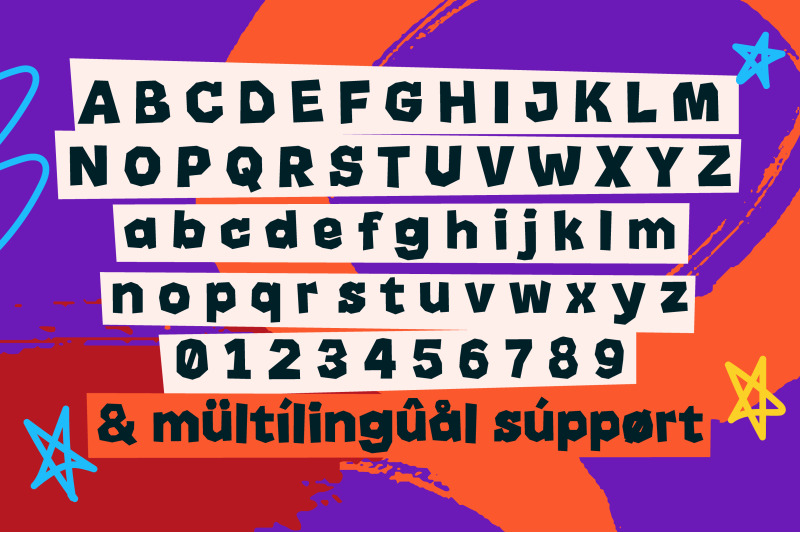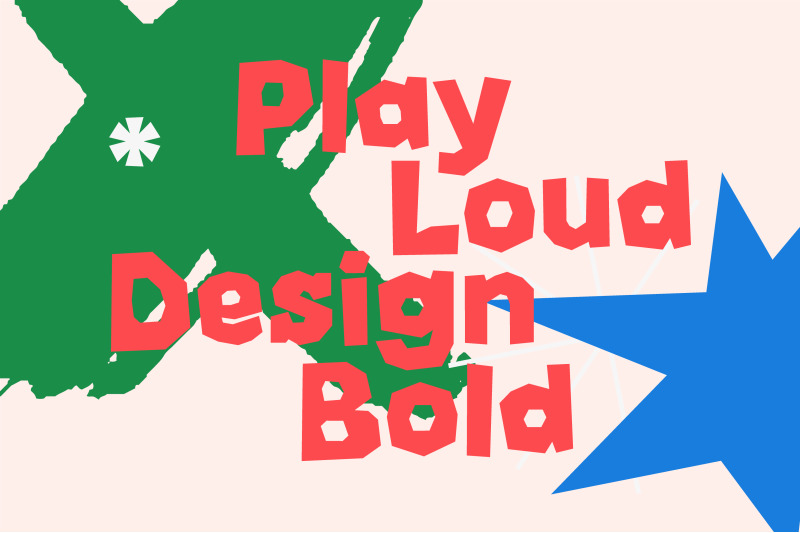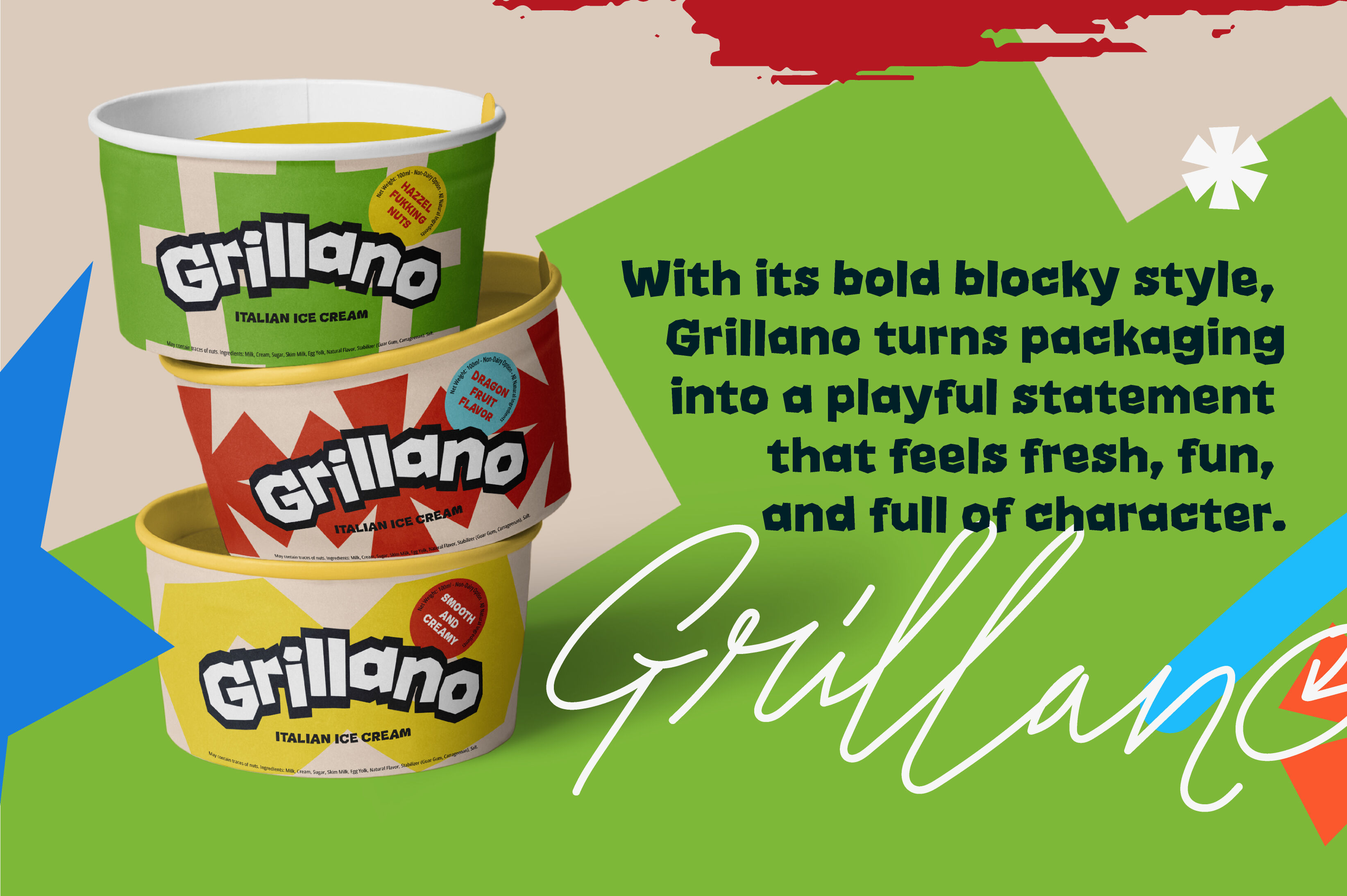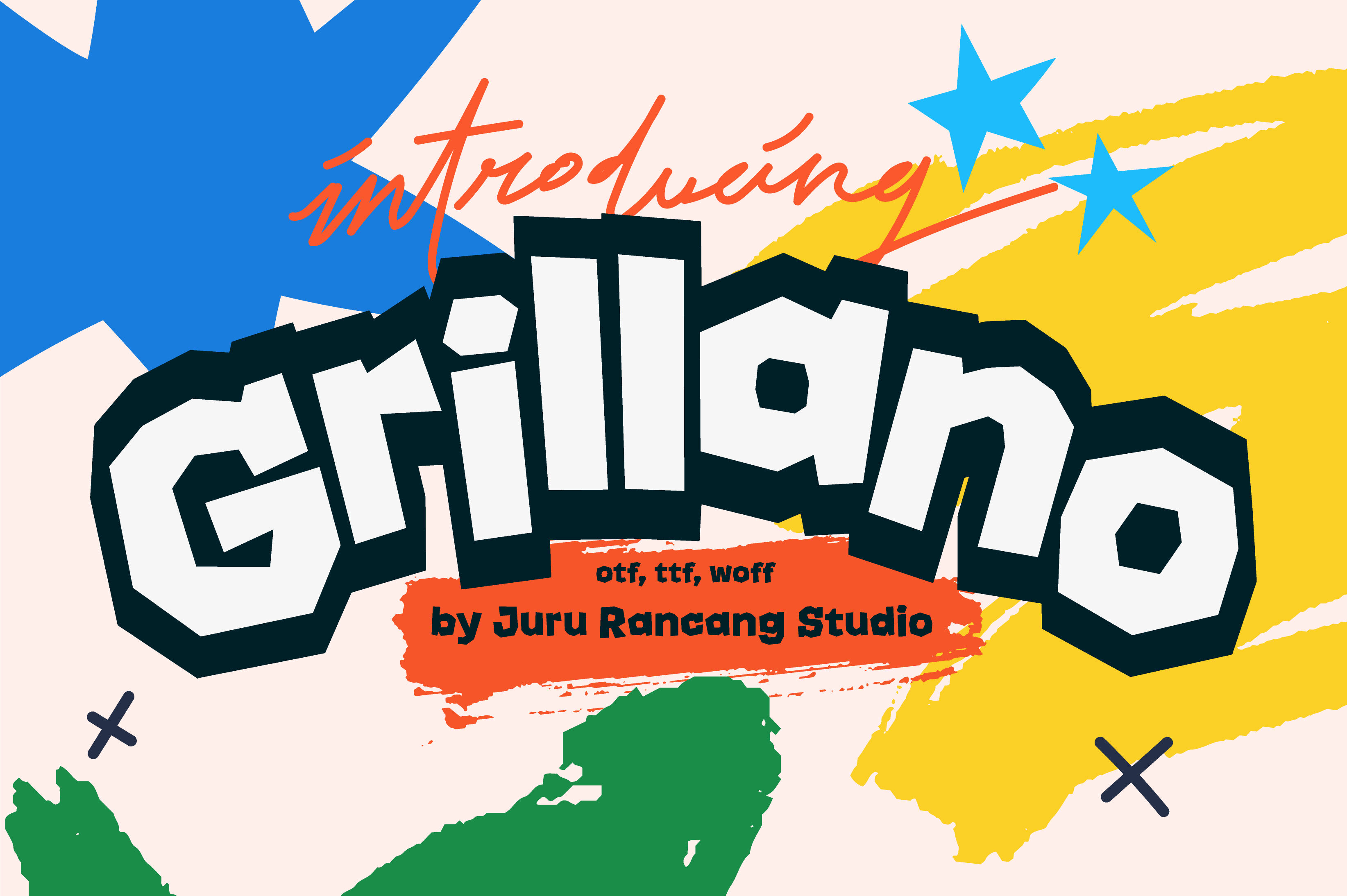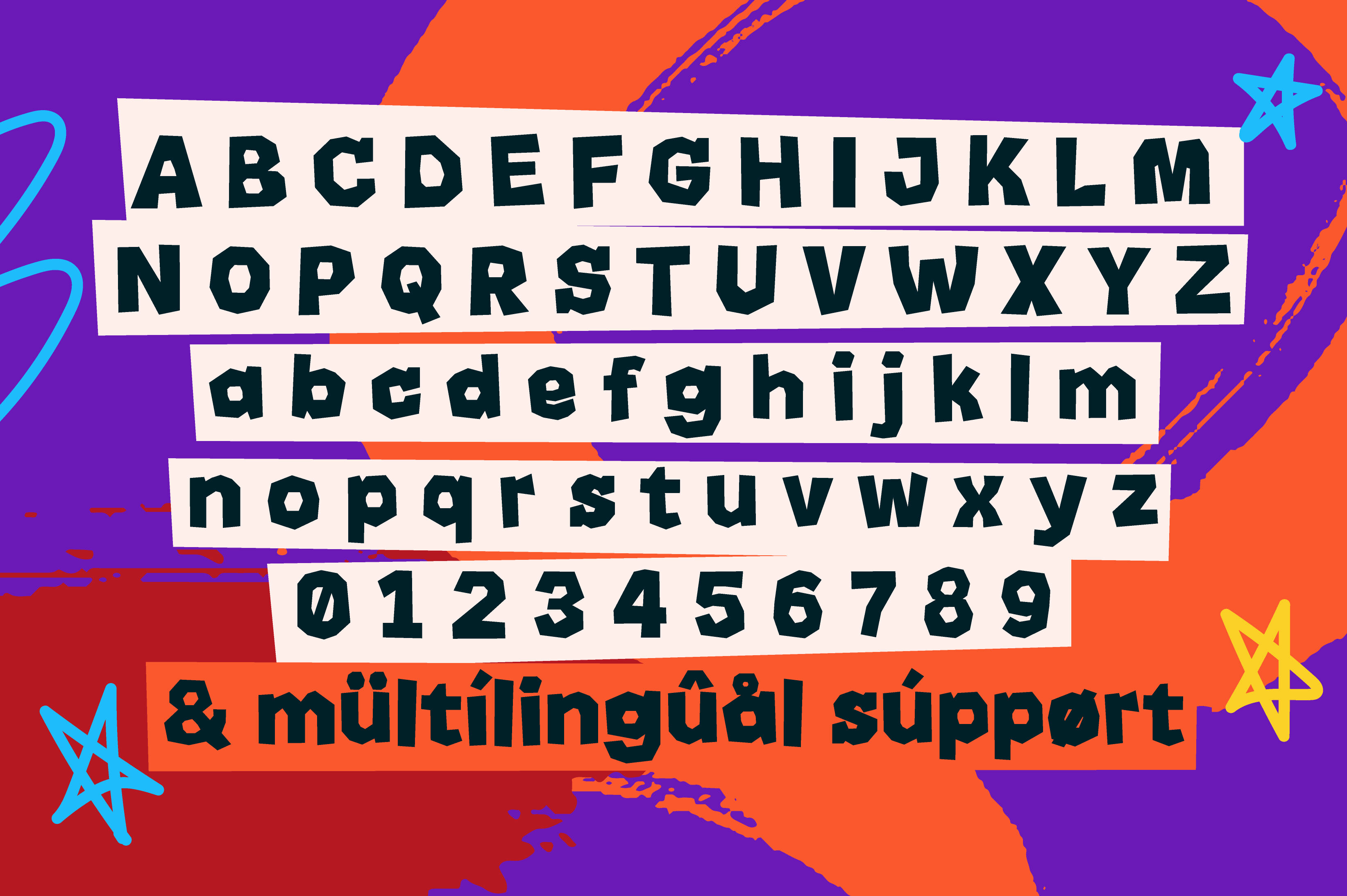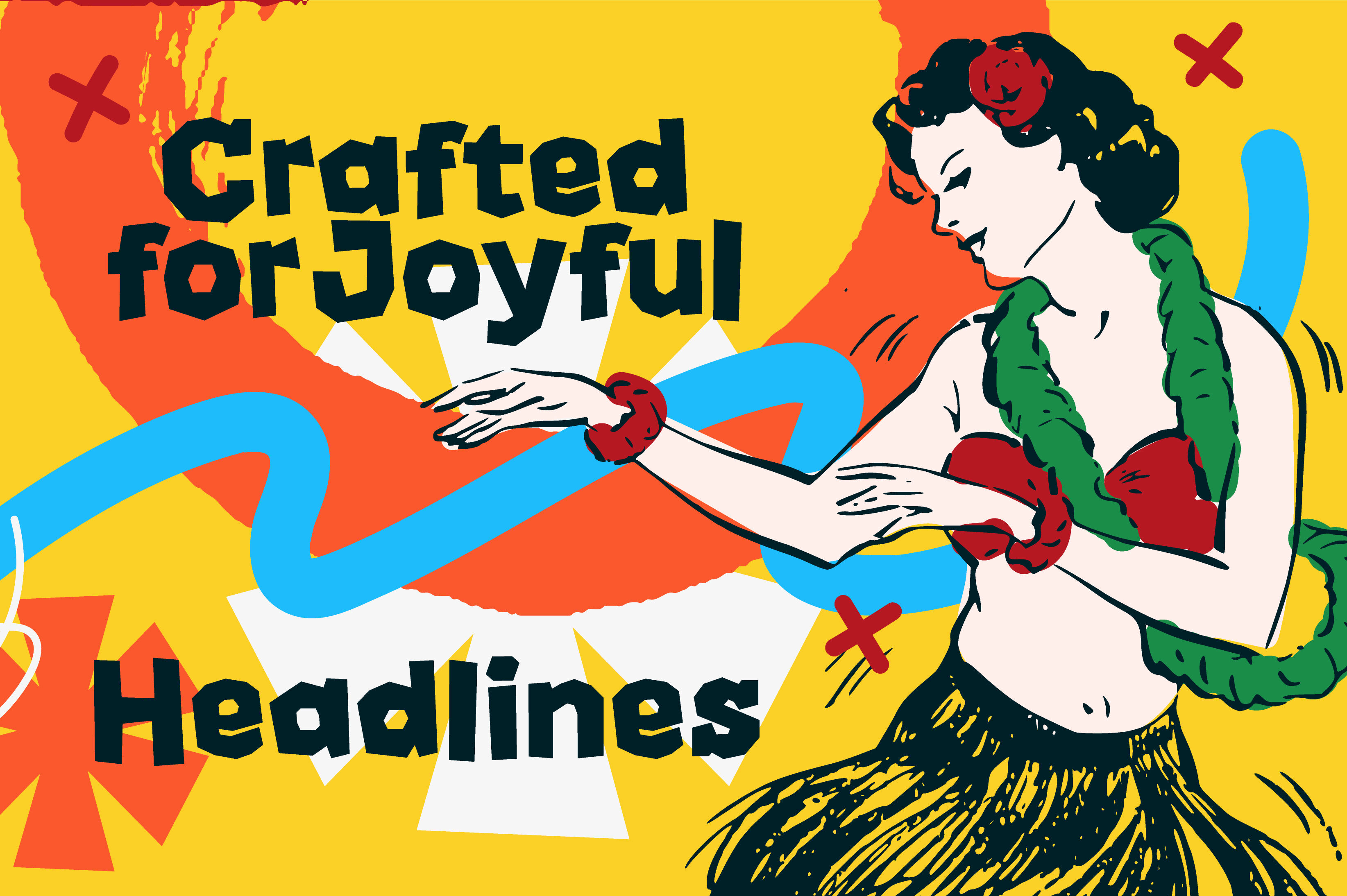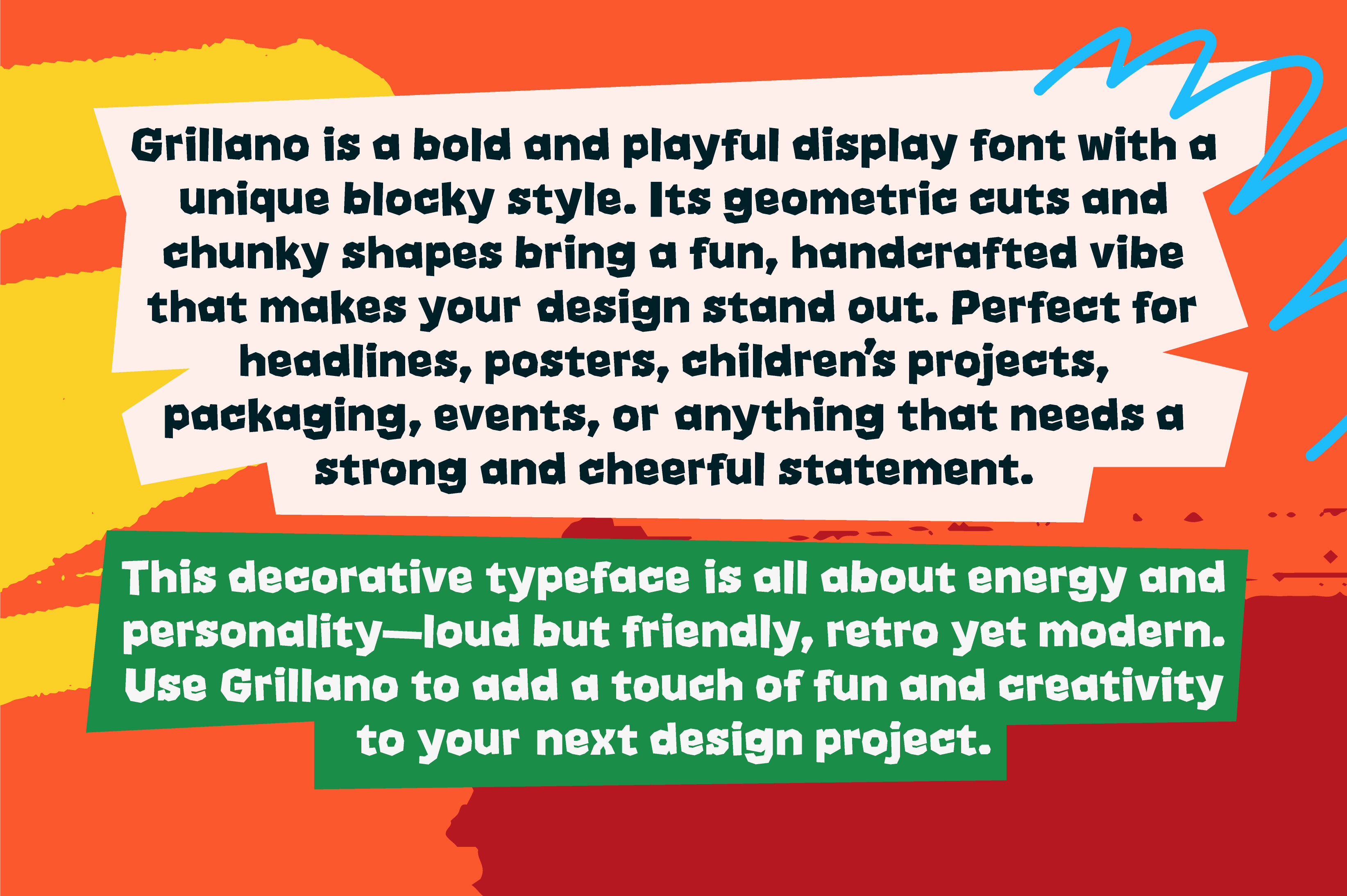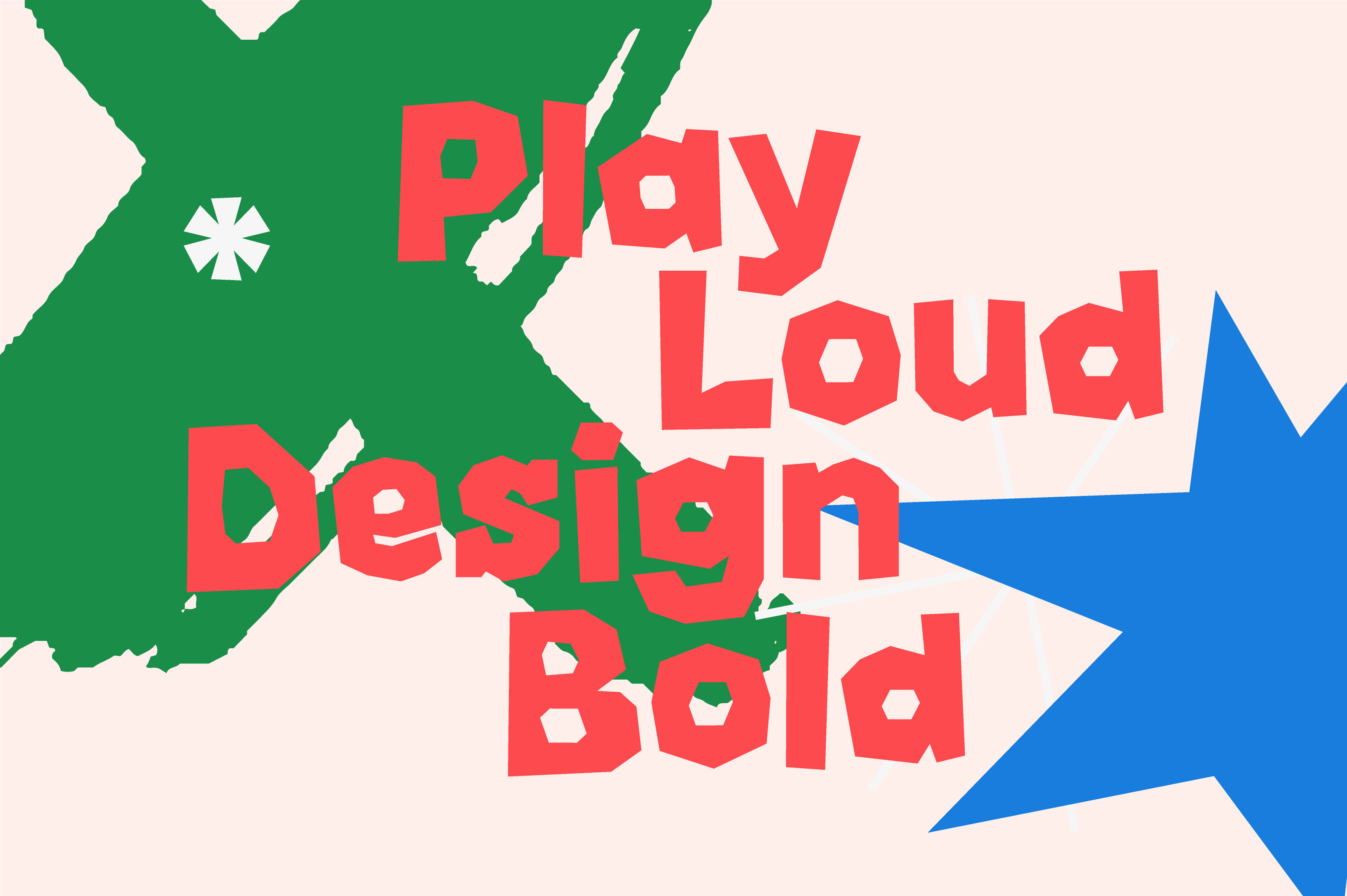
Grillano Fun Blocky Display Font
Grillano is a bold and playful display font with chunky blocky shapes and a handcrafted vibe. Perfect for packaging, posters, children’s projects, events, and any design that needs to stand out with a fun and cheerful look. Its retro-modern style makes it loud but friendly—bringing instant joy and impact to your creative work.